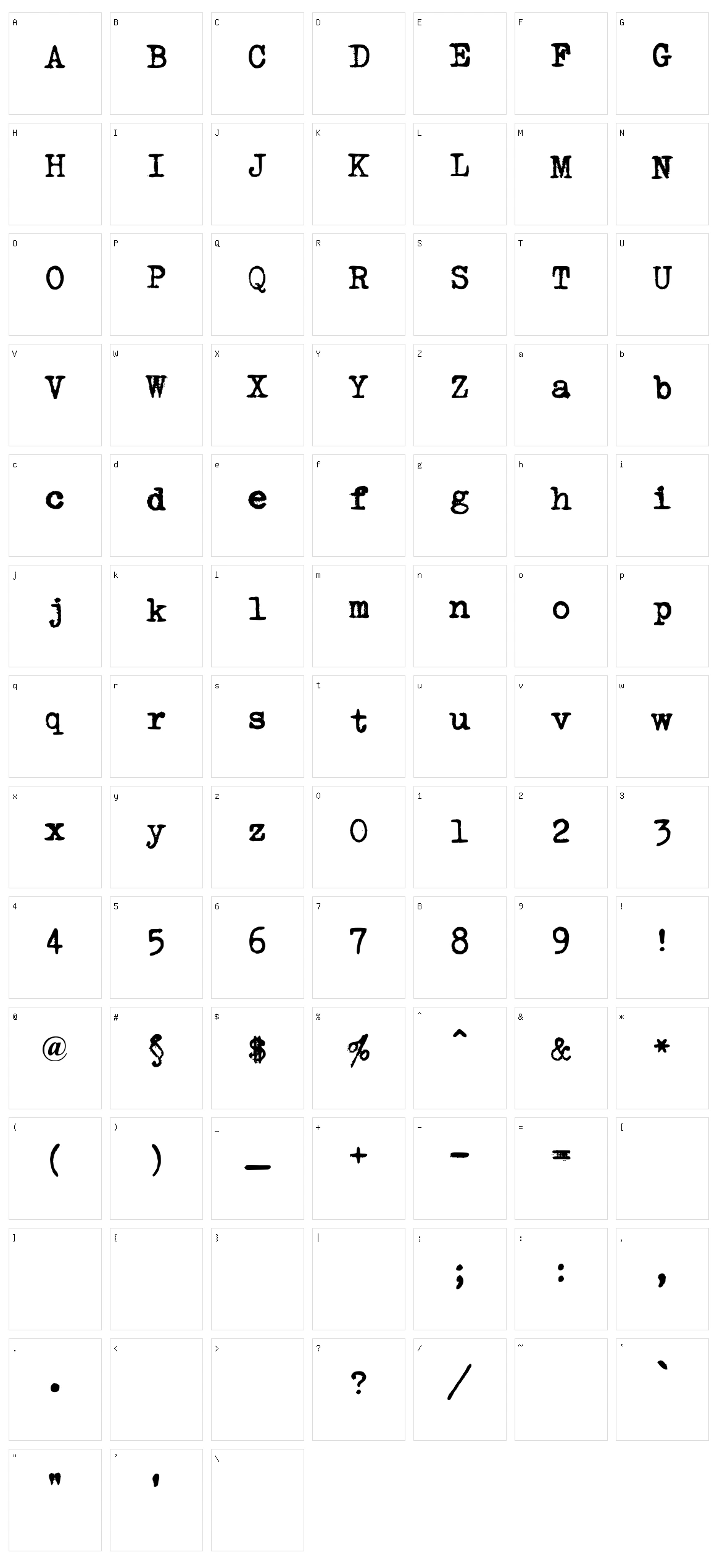
Urania Piccola II
Designed by: Georg Sommeregger
Category: Typewriter
Urania Piccola typewriter font.
This truetype typewriter font stems from a
Urania Piccola typewriter of 1933 (serial 111007)